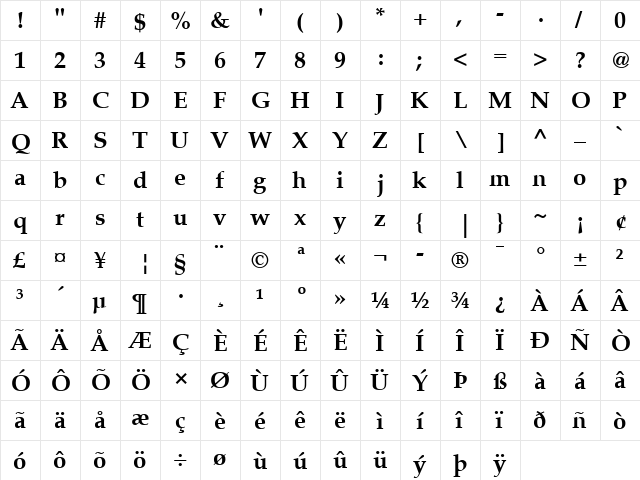
Palatino LT Bold Font Preview
Palatino LT Bold
Design Context for Palatino LT Typeface
Palatino LT is a composed and adaptable typeface that performs quietly and consistently across a wide range of design contexts. The heavy weight commands attention and anchors typographic hierarchies.
Pro Tip: Pair Palatino LT with a font of contrasting weight or personality to build a more expressive typographic hierarchy.